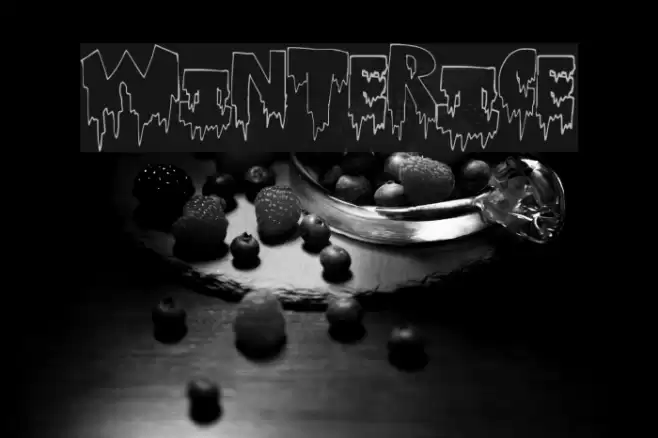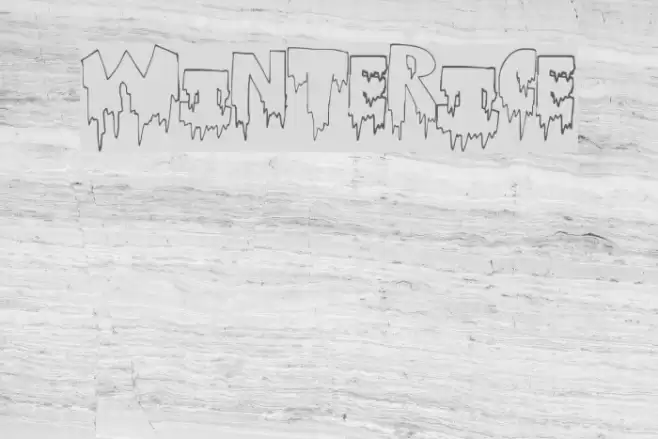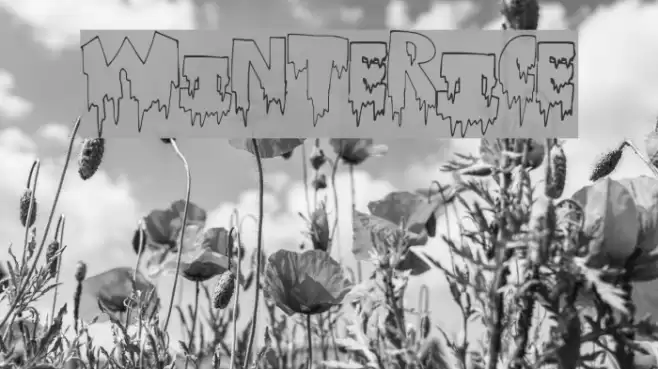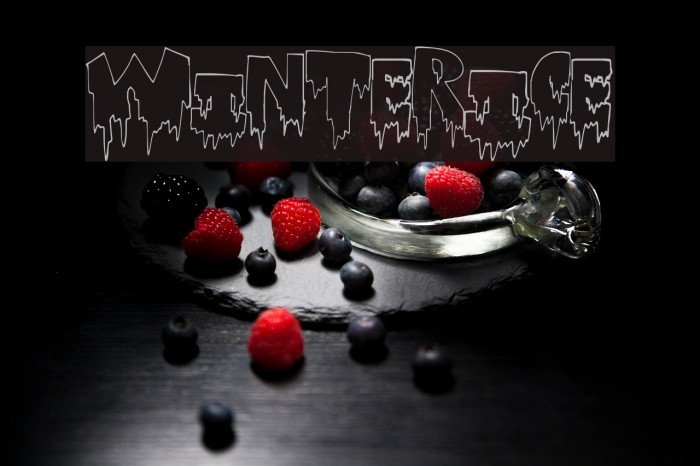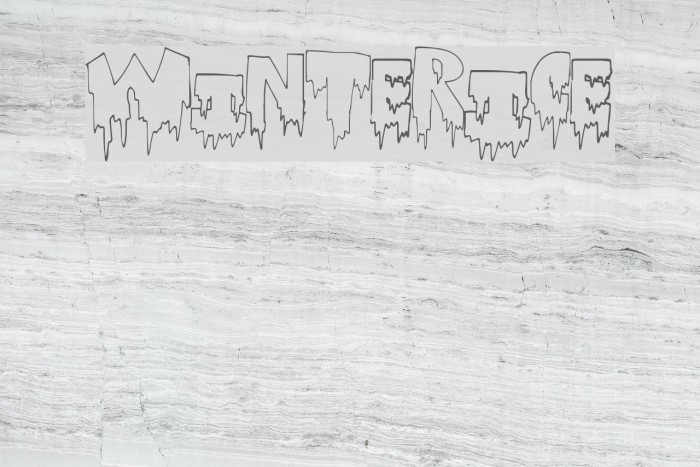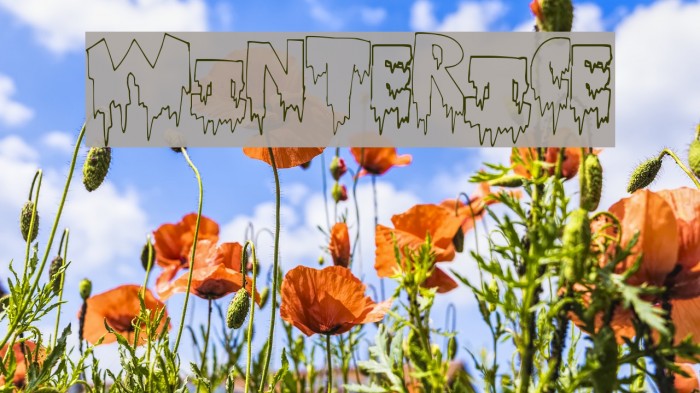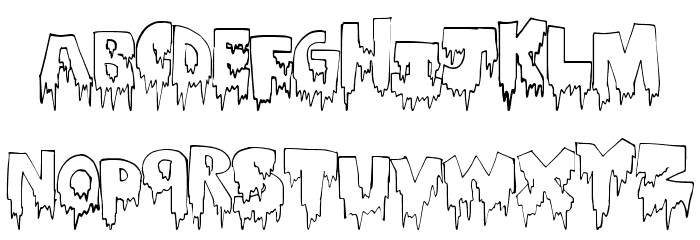
WinterIce Font
WinterIce Description
This font features a unique and playful design that mimics the appearance of icicles hanging from each character. The uppercase and lowercase letters are bold and have a jagged, dripping effect that suggests a frozen or wintry theme. The characters are well-defined, with each letter maintaining a consistent style that enhances the overall icy aesthetic. The font is particularly eye-catching and would be suitable for projects that require a fun, seasonal, or thematic touch. Its decorative nature makes it ideal for use in headlines or titles where a strong visual impact is desired.
A playful, icy-themed font with a dripping icicle effect from Fancy fonts.
- Proposed Projects: Ideal for winter-themed posters, holiday cards, event invitations, and children's book covers.